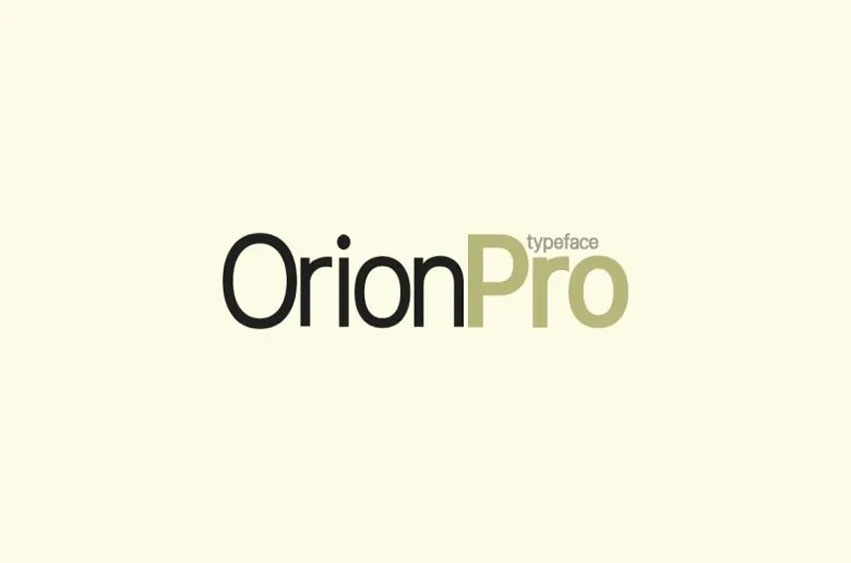
Orion Pro Font
Orion Pro Font is a modern font family created from famous Swiss typefaces, making it perfect for headlines, logotypes, branding corporate identity and marketing graphics – as well as for all print and web needs.
Perfectly crafted to meet all your design needs.